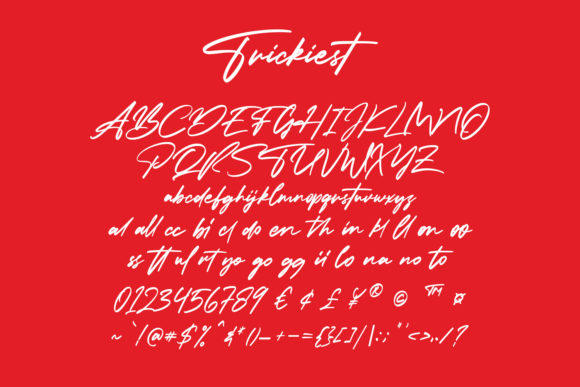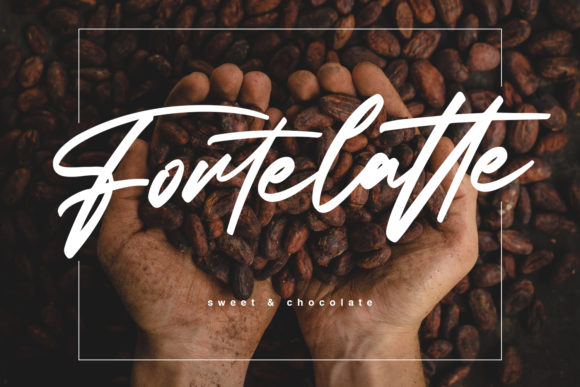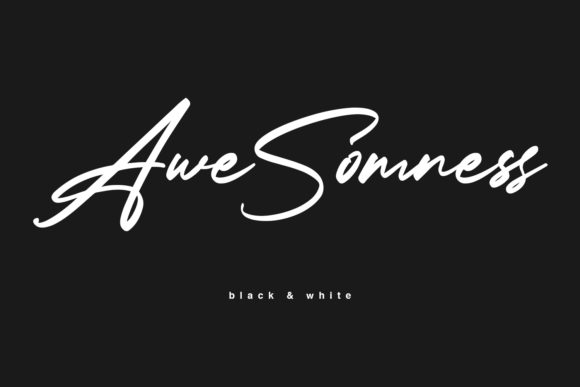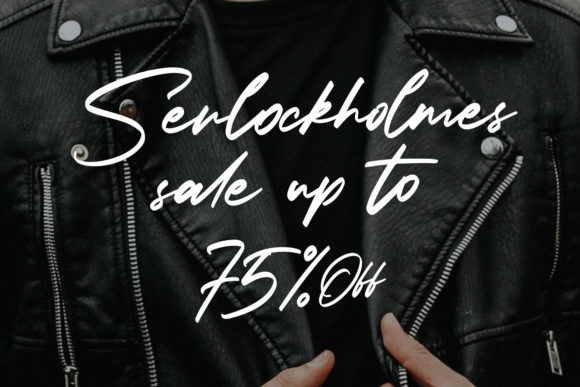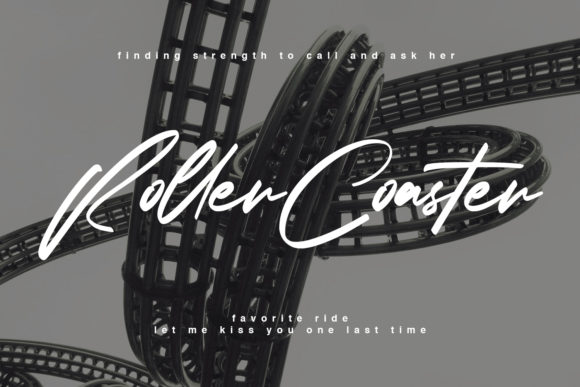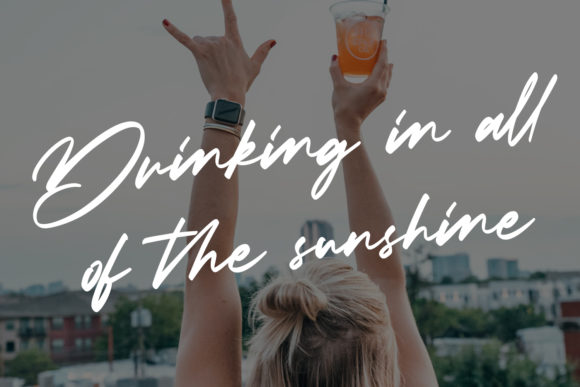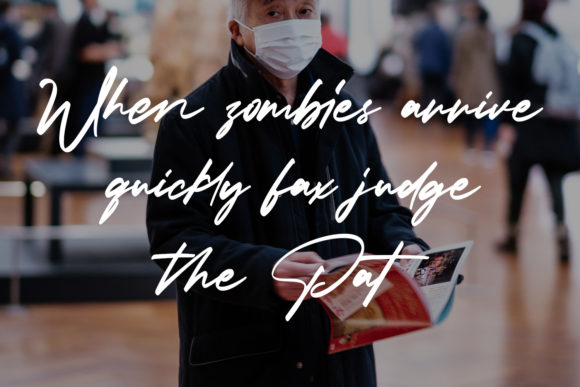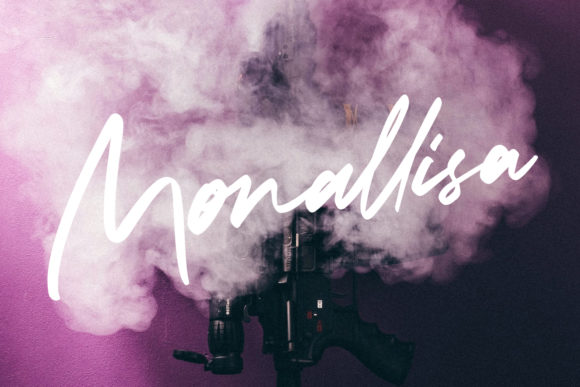
Trickiest Font
About Trickiest Font
Trickiest feels equally charming and elegant. This stunning handwritten font is a stylish homage to classic calligraphy. It’s the perfect font for making original and outstanding designs.